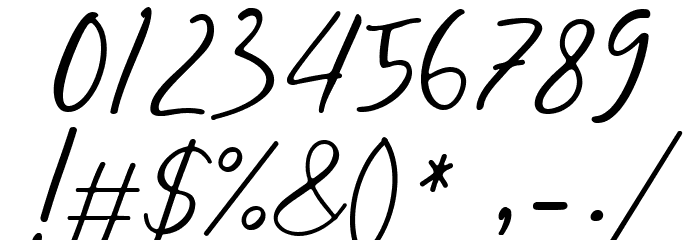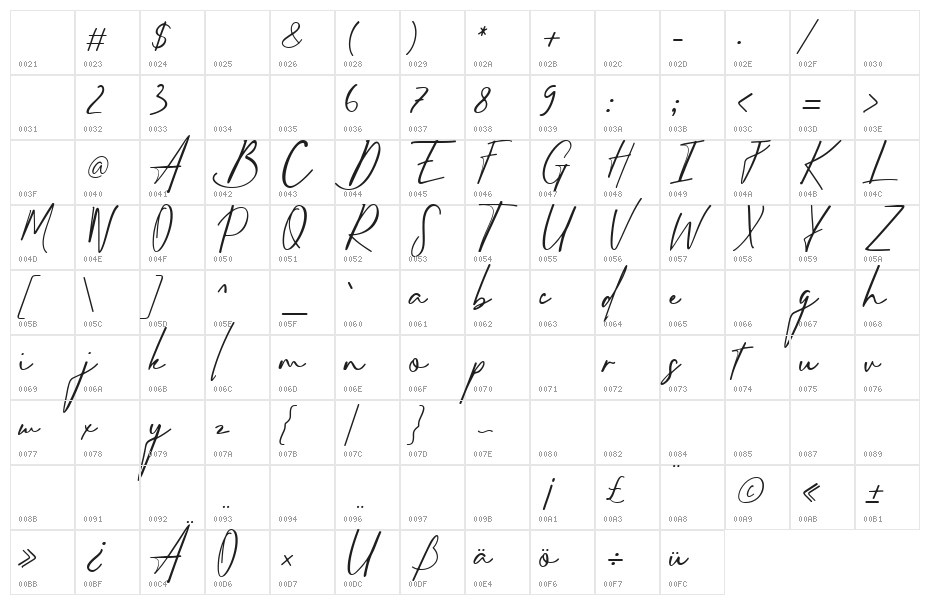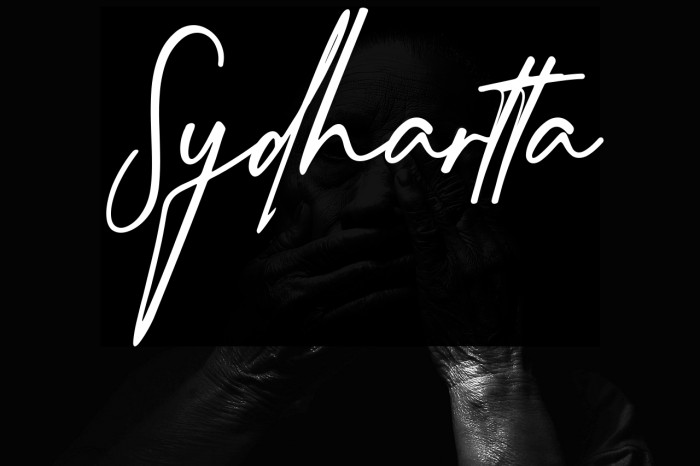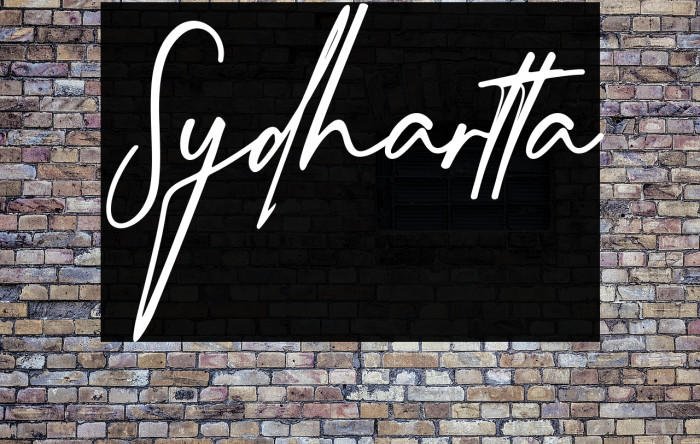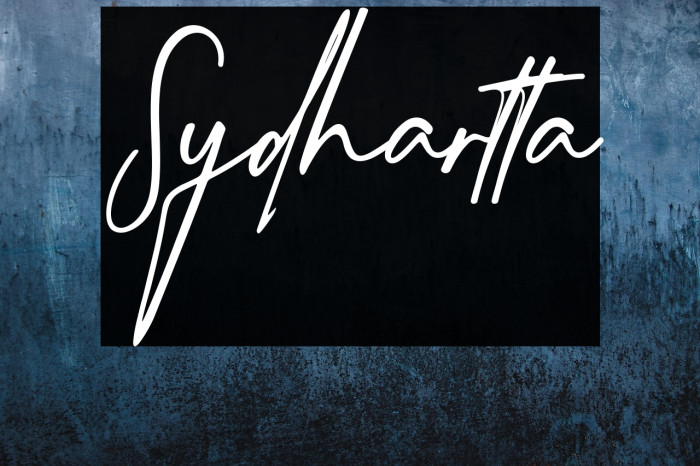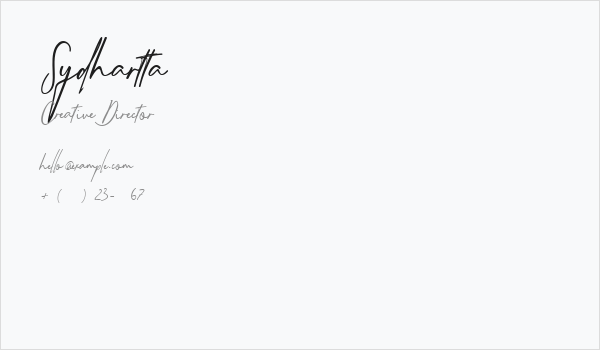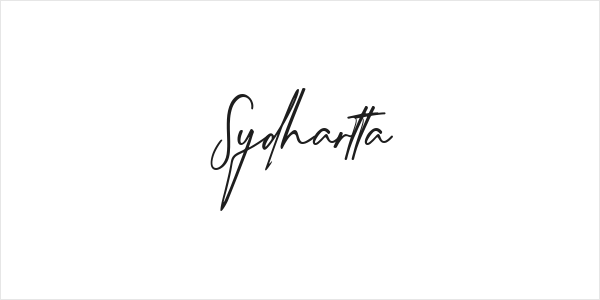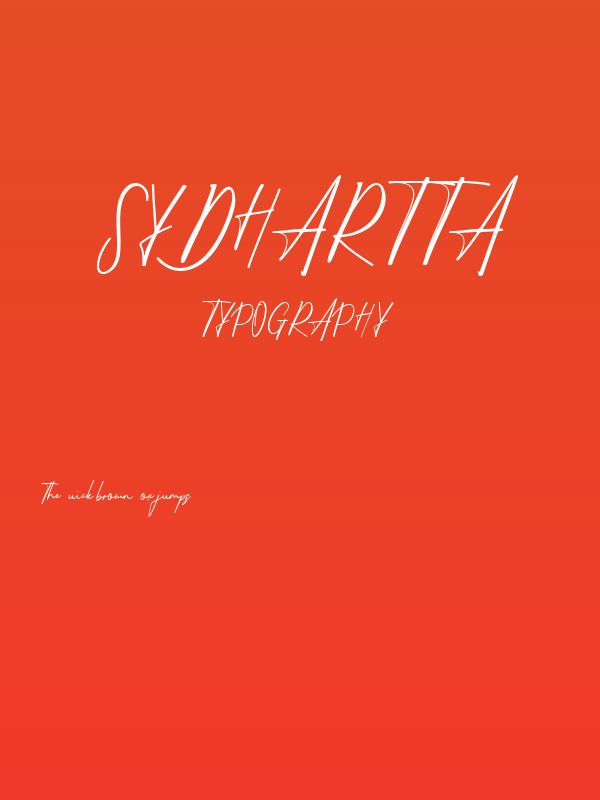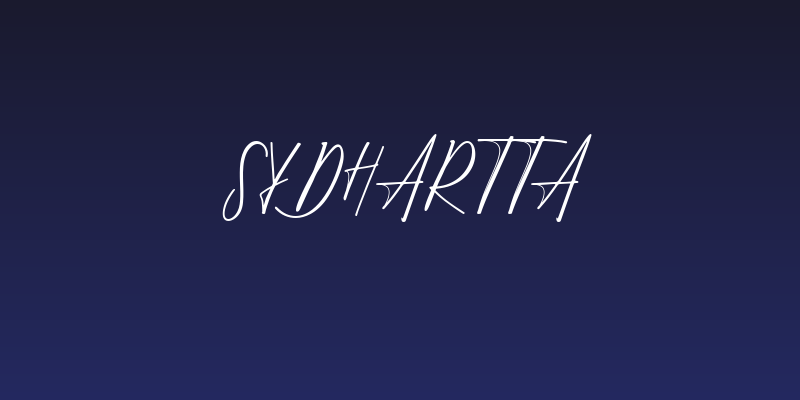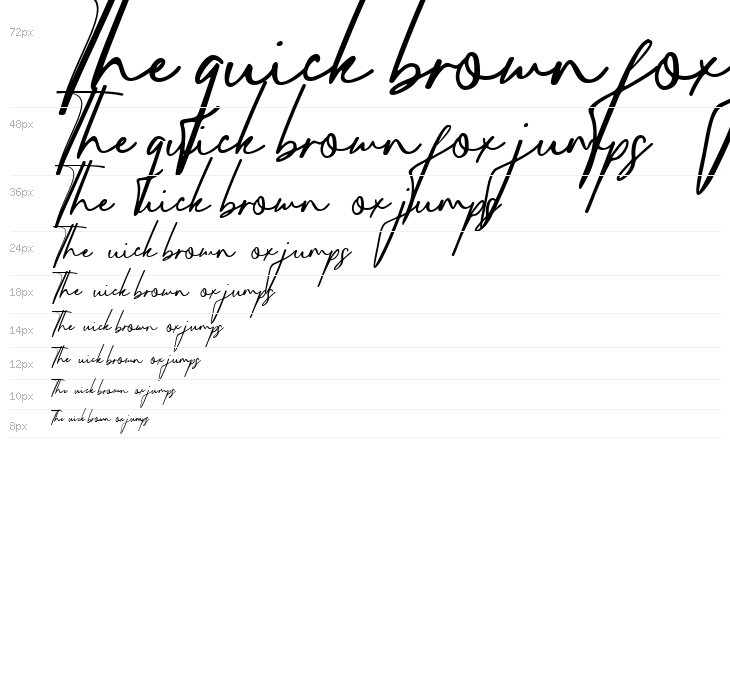
Sydhartta Font
Sydhartta Description
This font exudes a dynamic and energetic style, characterized by its flowing, cursive script. The letters are elegantly connected, giving it a handwritten feel that is both personal and expressive. The uppercase letters are tall and slender, while the lowercase letters maintain a consistent flow, enhancing readability. The numbers and special characters are crafted with the same fluidity, ensuring a cohesive look across all text. This font is ideal for projects that require a personal touch, such as invitations, greeting cards, or branding materials that aim to convey a sense of elegance and sophistication.
| Proposed Projects | Ideal for invitations, greeting cards, and elegant branding materials. |